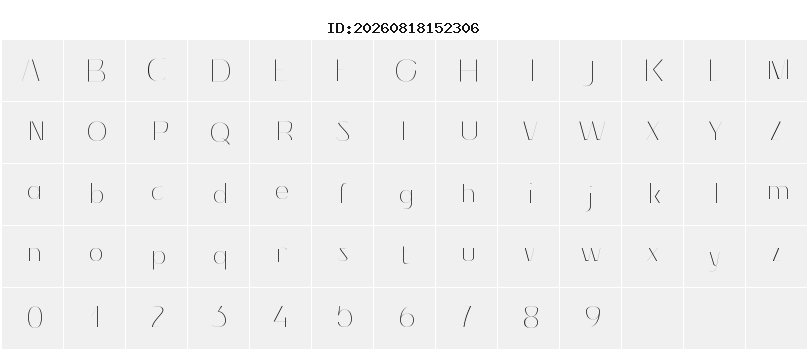
• Font Name: Slim_Slim
About Slim_Slim.ttf
Slim_Slim.ttf is a modern, elegant sans-serif font designed for ultimate readability and visual harmony. Perfect for branding, headlines, web design, and print materials.